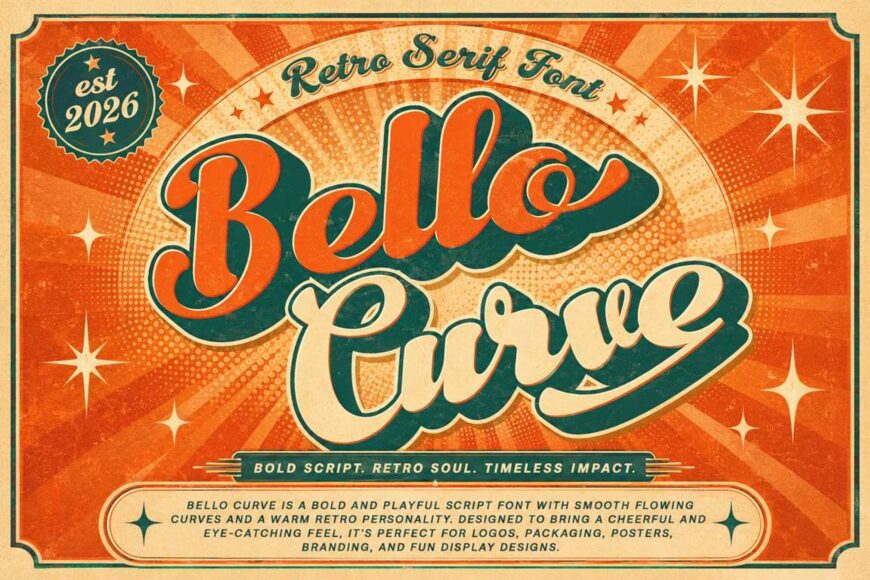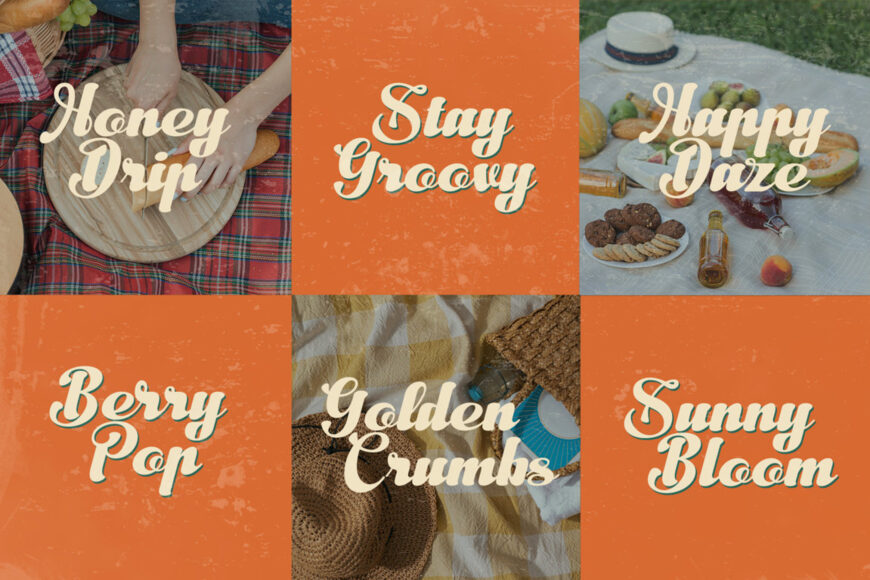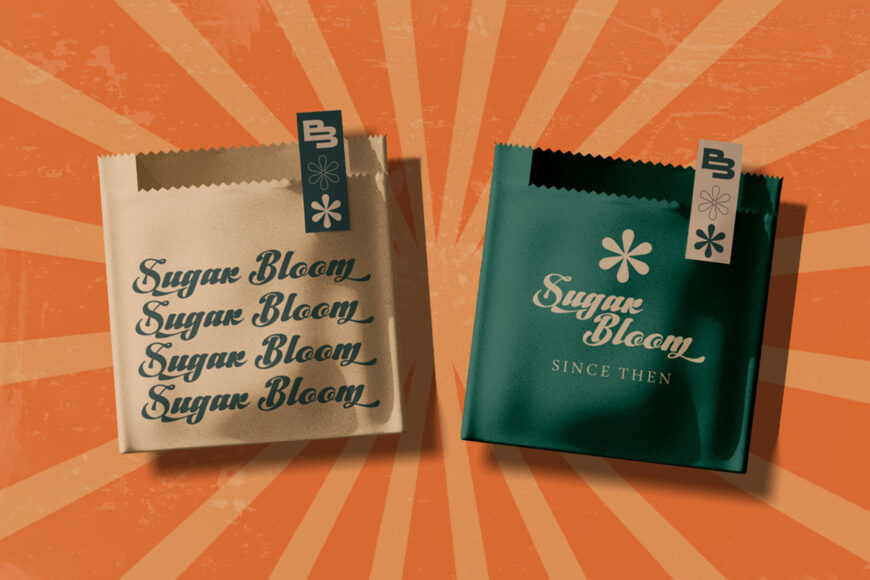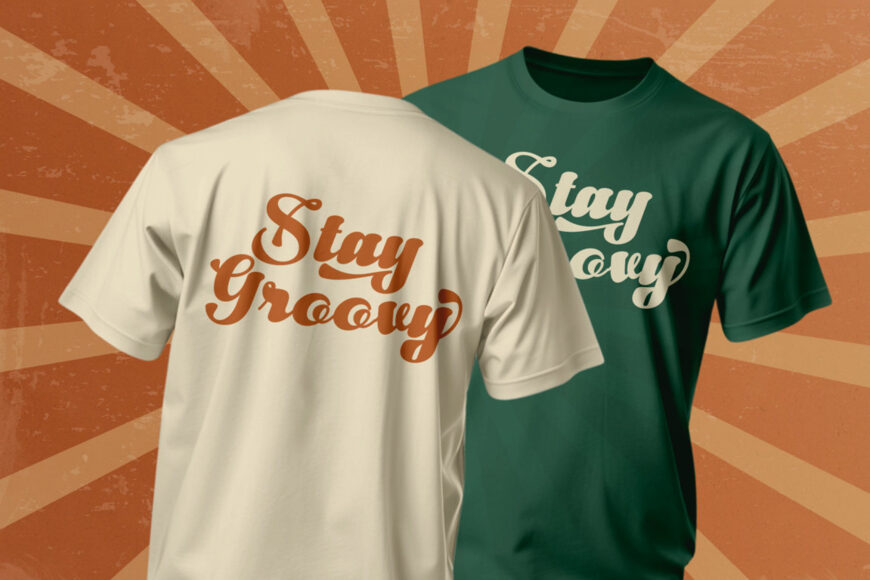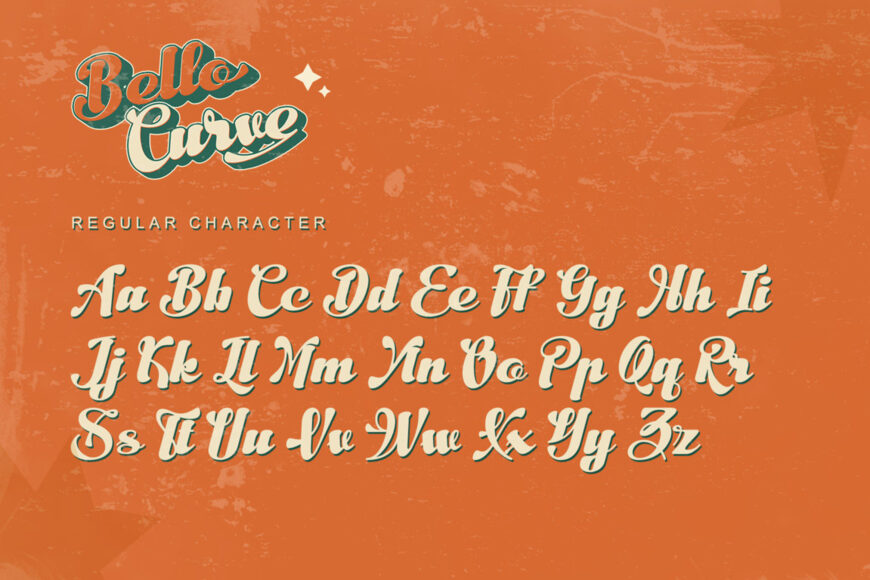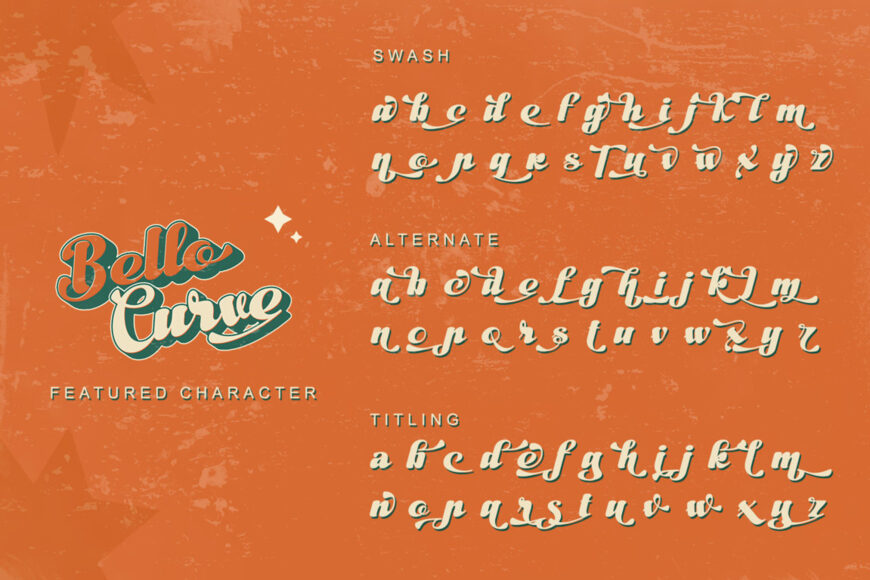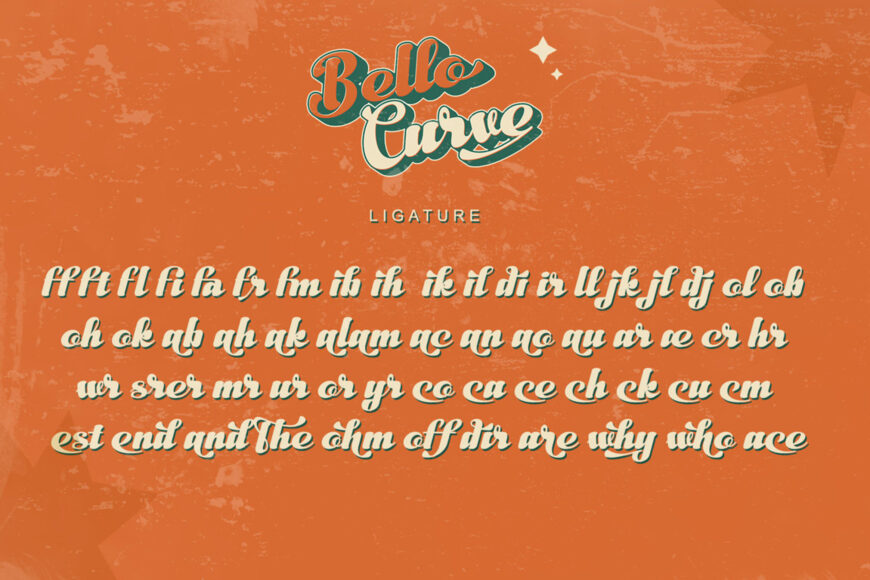
Bello Curve is a bold retro script font featuring smooth flowing curves, decorative swashes, alternates, titling characters, ligatures, numerals, punctuation, and multilingual support. Perfect for vintage logos, food packaging, restaurant branding, posters, apparel, product labels, album covers, and cheerful promotional designs.